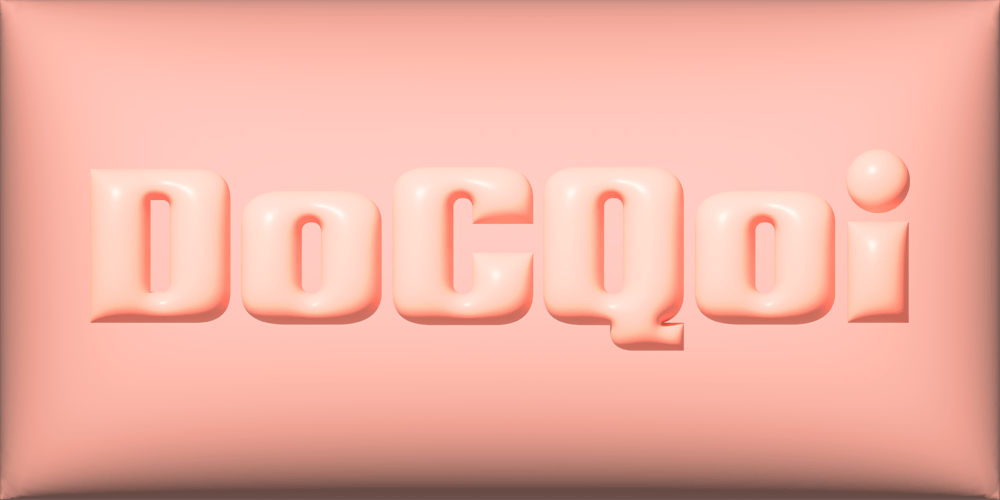
DoCQoi Sans Font Family was designed by Soshi Naemura and published by Thirdin. DoCQoi Sans contains 3 styles and family package options. This font contains many meanings such as cheering, prosperous business, strongness and universality.”DOKKOI” is An interjection used in cheering for Japanese traditional wrestling sports “SUMO”.Since SUMO wrestlers’ slapping force is about 500kg, they need to put on a lot of weight so as to protect their body from the impact of slapping and gain the risk of getting hurts.In sumo tournaments, traditionally letters are written very thick. It is said that the thick letters are written to fill the blank spaces in hopes that the venue will be filled with spectators.